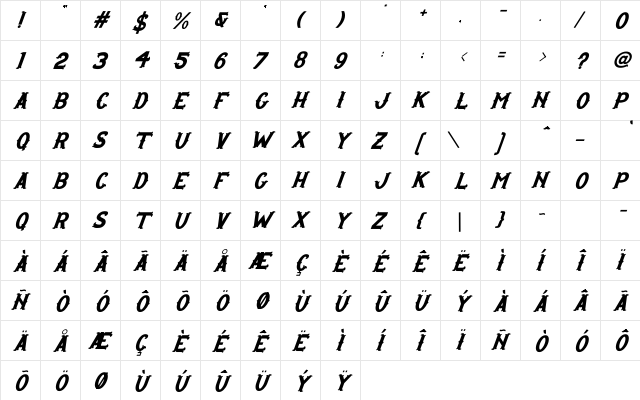
West Thistle Italic Regular
Design Context for West Thistle Italic Typeface
West Thistle Italic takes a measured approach to typography — its balanced proportions and neutral character make it a reliable workhorse for both digital and print work. The dynamic lean of this cut emphasises speed and emphasis in any layout.
Pro Tip: Try West Thistle Italic for annotation and caption copy alongside an upright companion — the contrast in angle creates a dynamic but ordered typographic system.